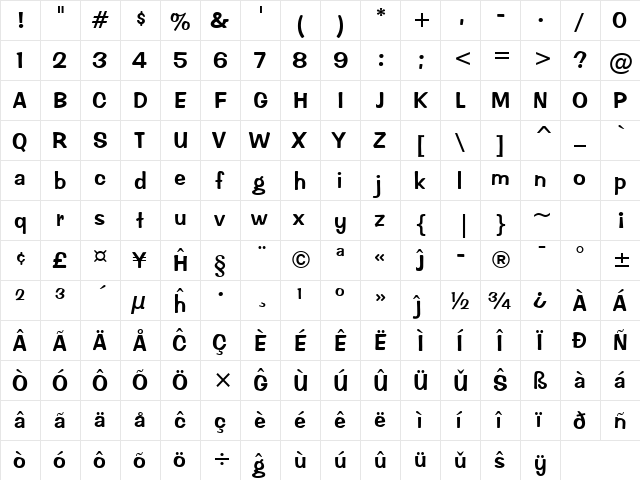
Impress Eo Regular
Design Context for Impress Eo Typeface
Impress Eo offers clean, dependable letterforms without strong stylistic allegiance, making it a practical choice for designers who need flexibility.